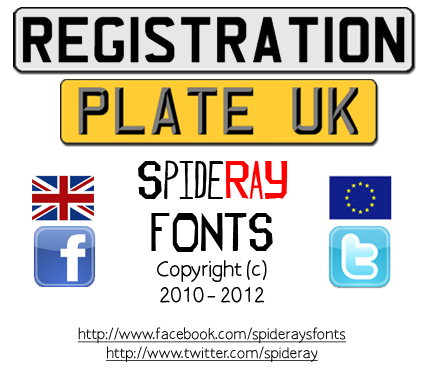
My version of the font used on both UK Standard and UK Standard 3D Registration Plates. For a full licensed OTF commercial license that includes the 3D effect numbers and ability to generate complete number plates with EU badges like in the Image gallery 696 GBE and CFW 448C two very old REG PLATES from time gone by, please visit out Etsy Store @ http://etsy.me/2dH3Yt4 |